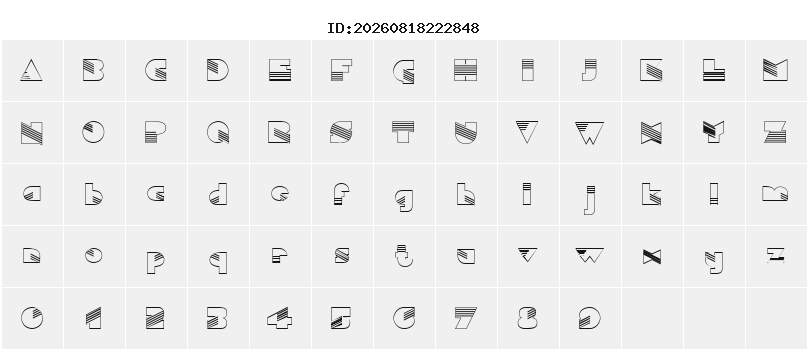
Sinalco Outline Preview
• Font Name: Sinalco Outline
• Full Font Name: Sinalco Outline
About Sinalco Outline.ttf
Sinalco Outline.ttf is a modern, elegant sans-serif font designed for ultimate readability and visual harmony. Perfect for branding, headlines, web design, and print materials.